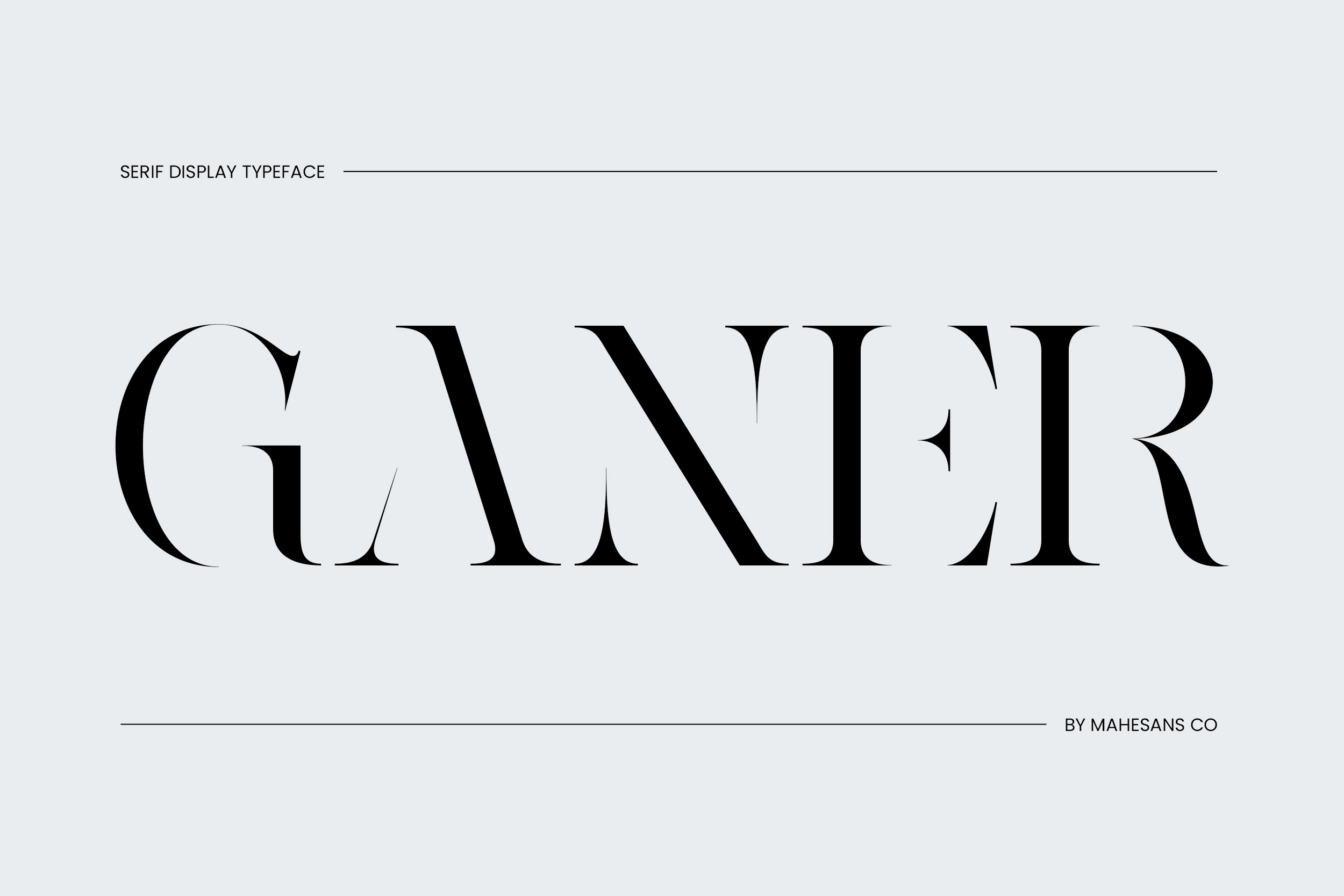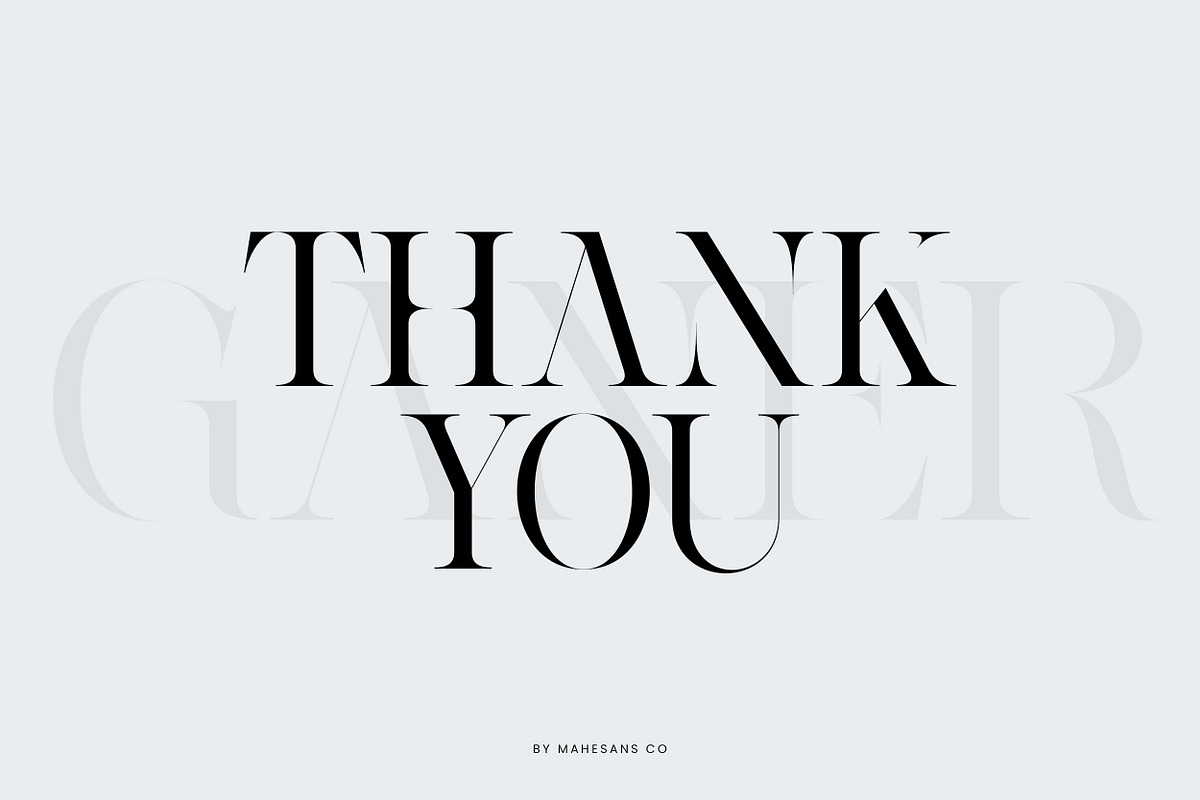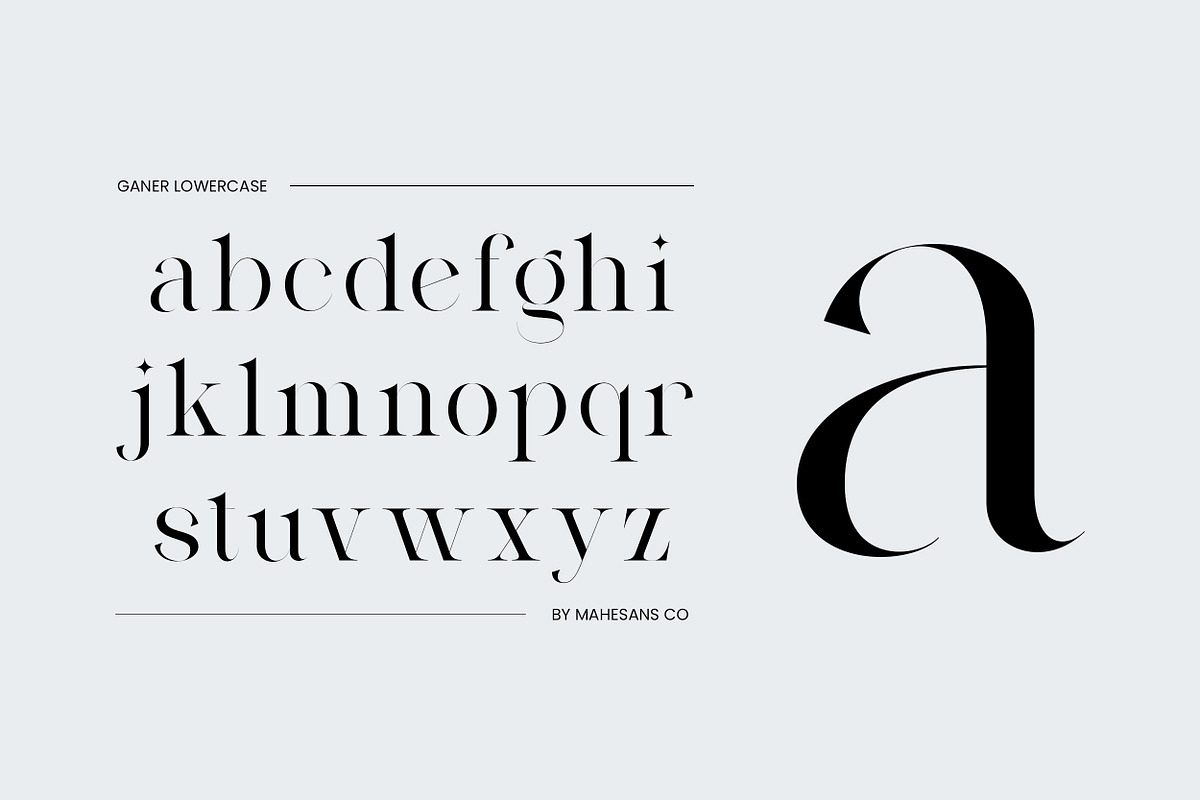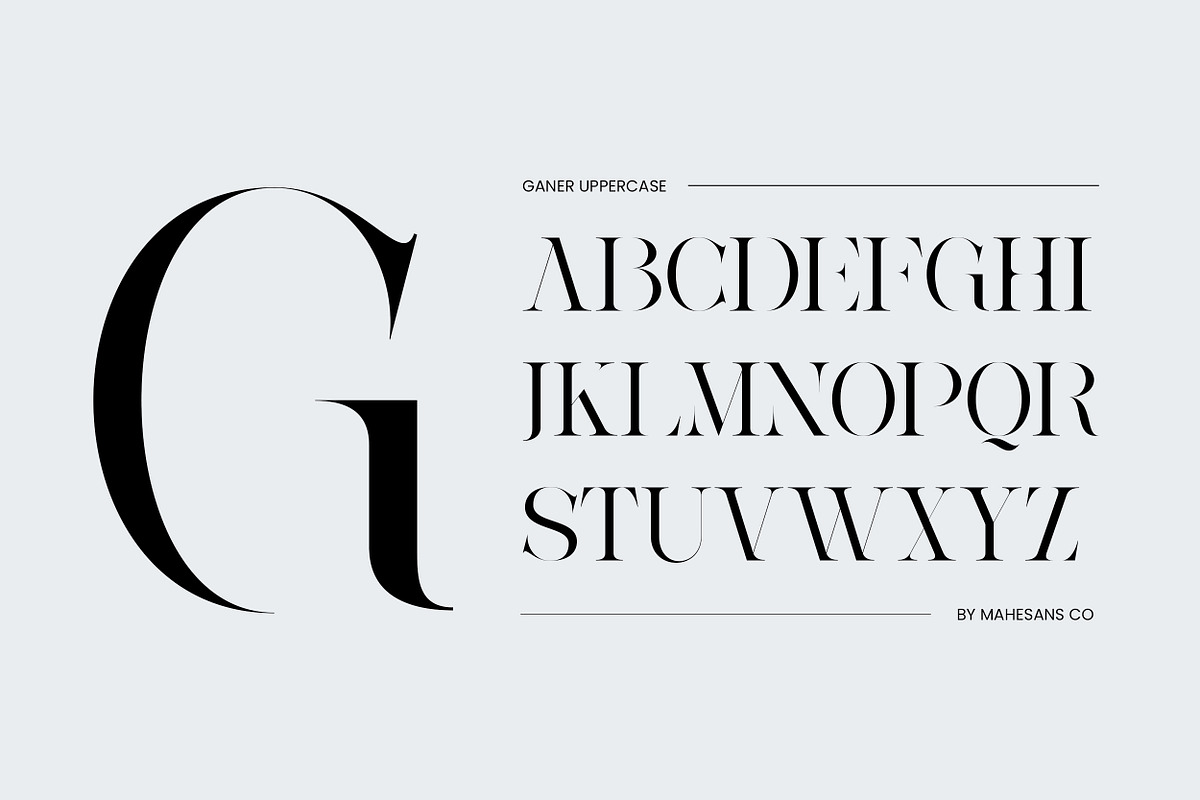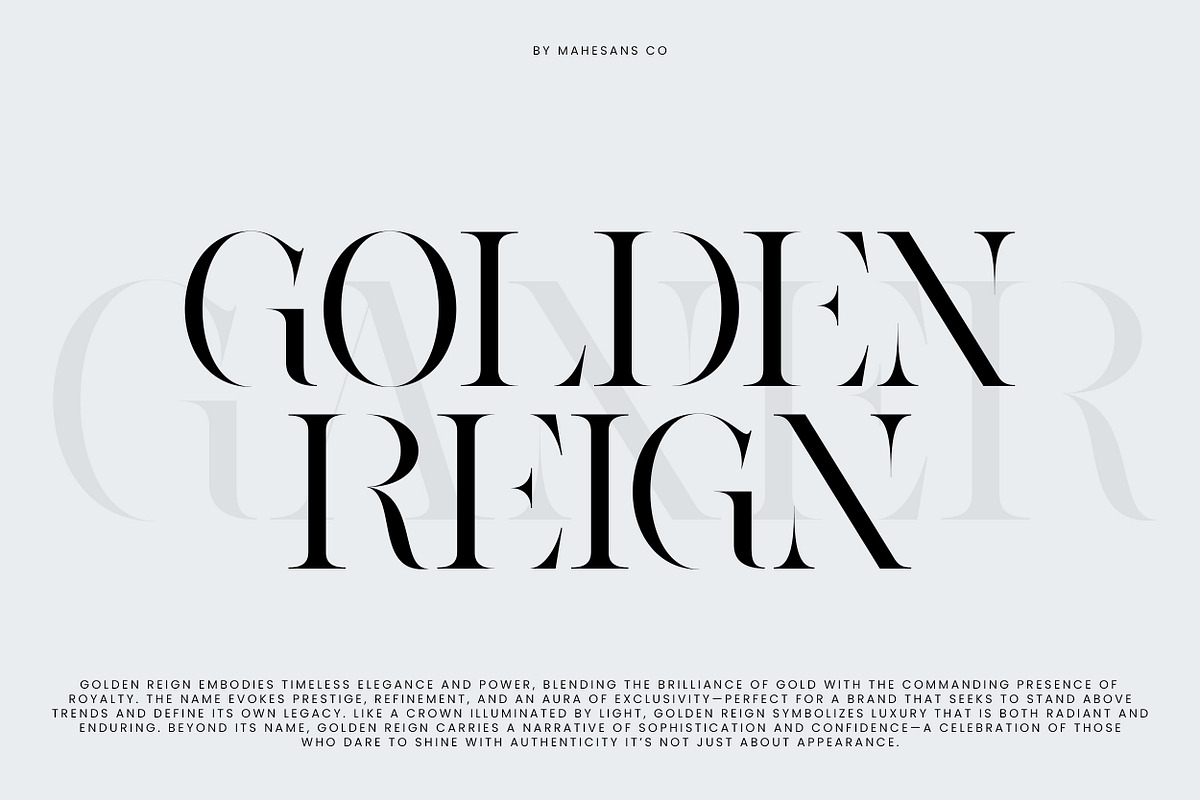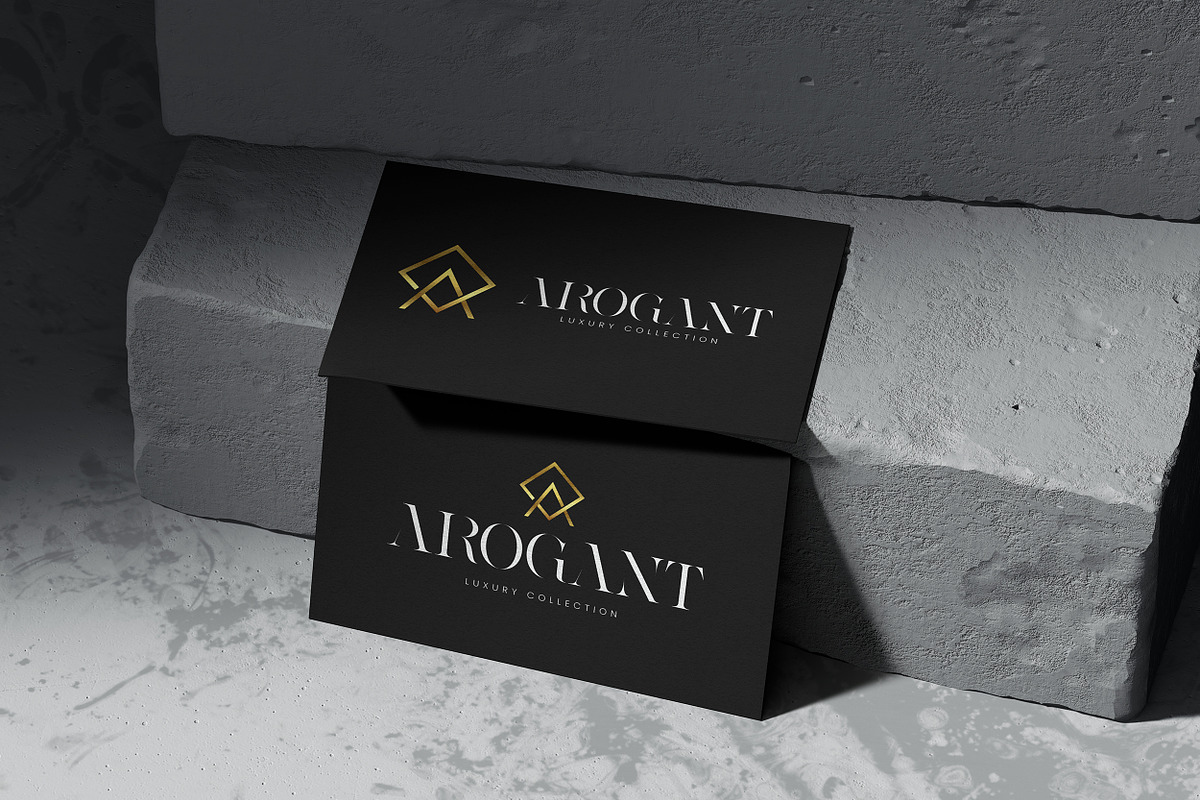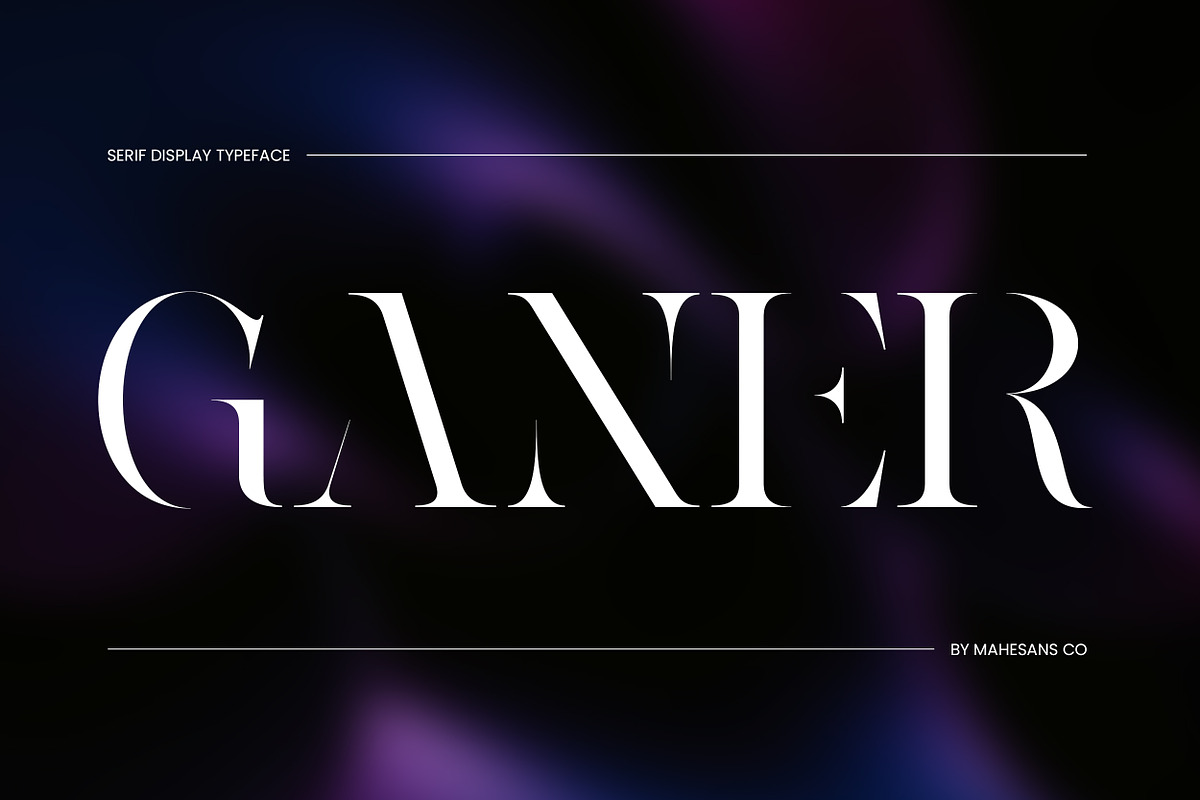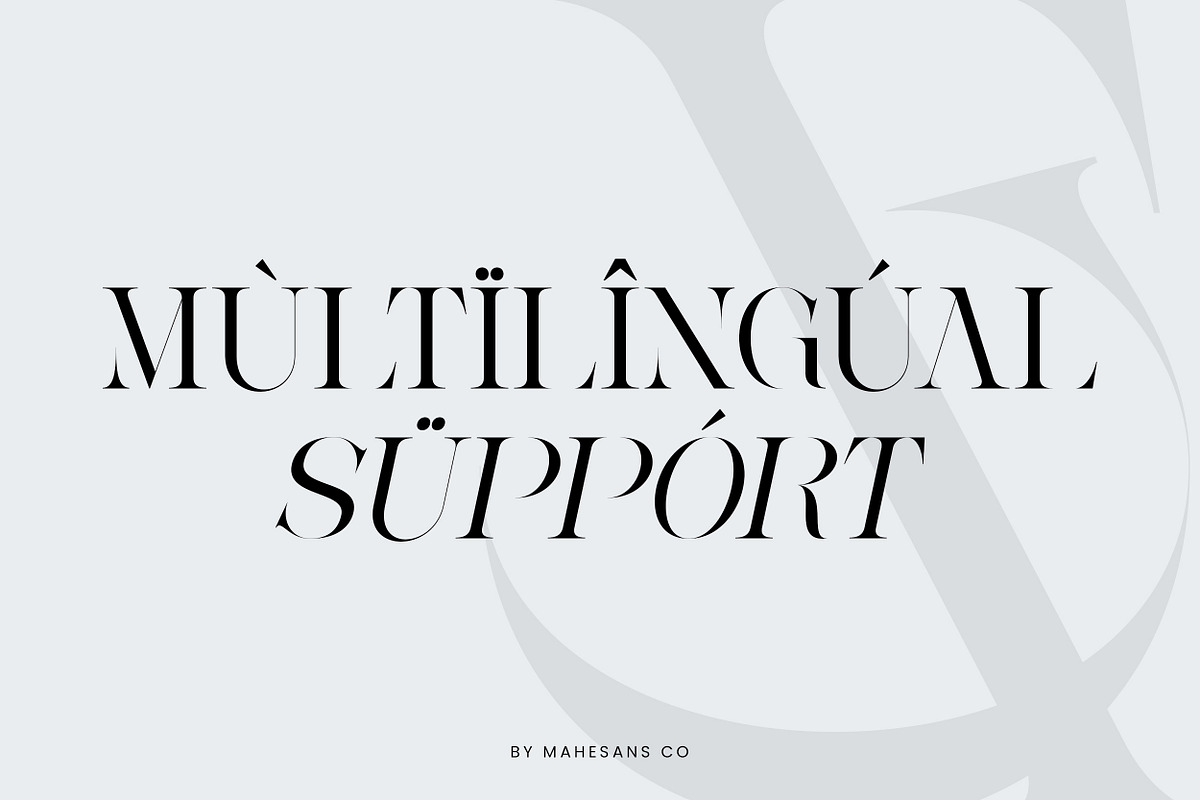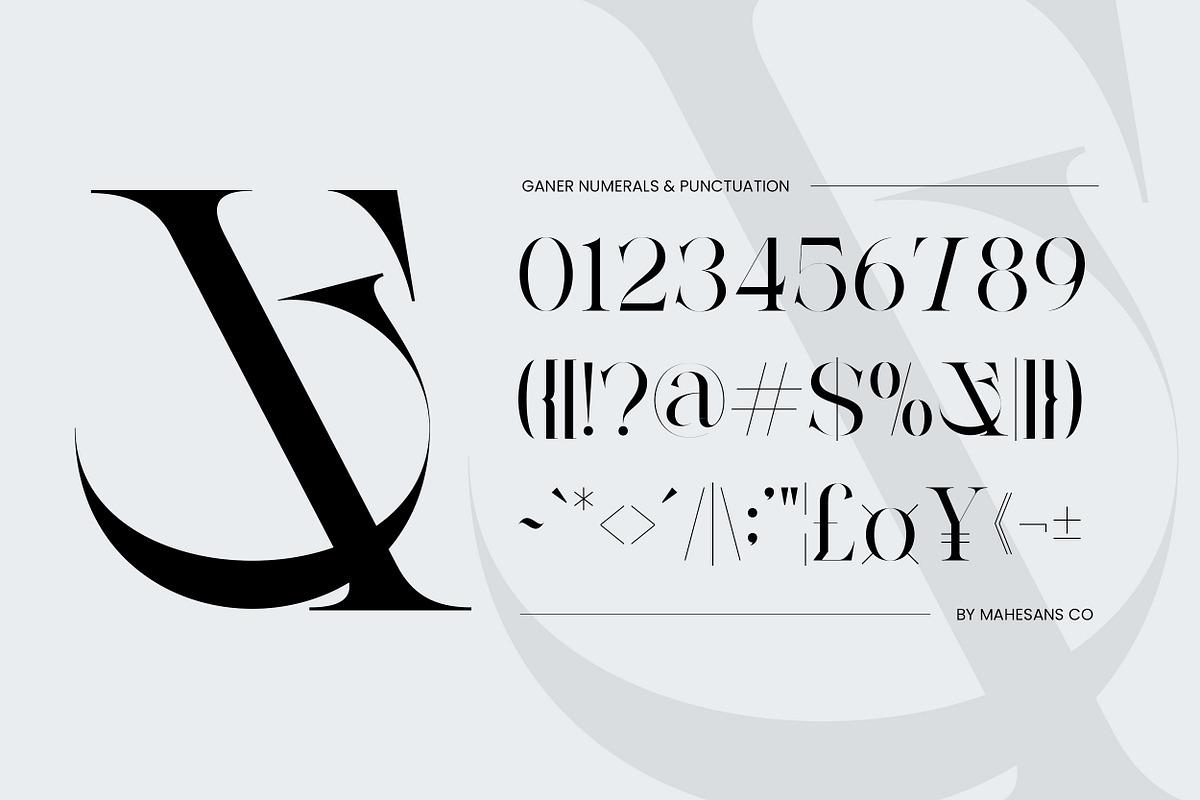
Ganer | Serif Display Typeface
Introducing GANER, a modern serif display typeface designed with elegant contrast and refined details. The sharp edges combined with graceful curves create a bold yet sophisticated look, making it perfect for luxury branding, editorial design, fashion projects, and stylish headlines.
With its timeless serif structure and high contrast strokes, GANER brings a sense of prestige and refinement to any design. Whether used for logos, magazine covers, wedding invitations, or packaging, this font will elevate your typography with a distinctive and classy presence.
- Regular & Italic Style
- Multilanguage